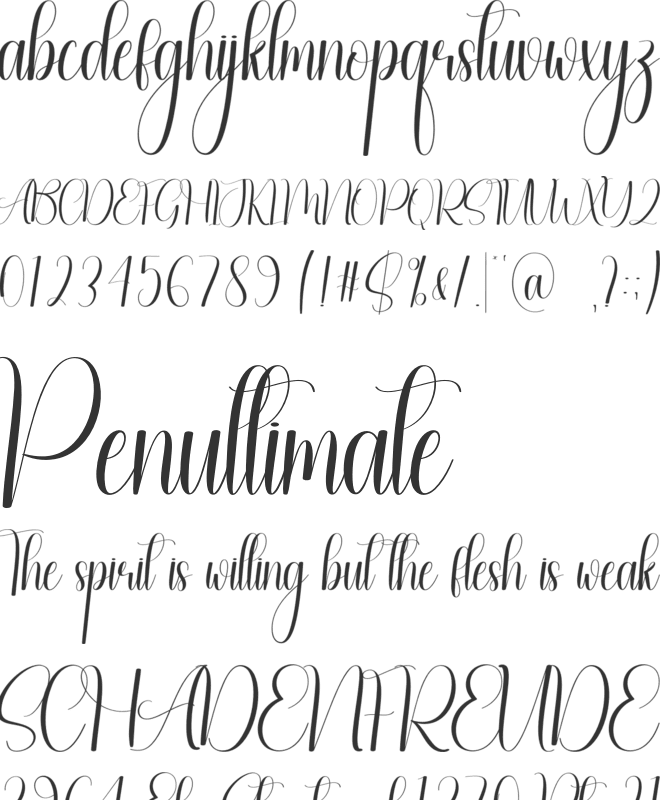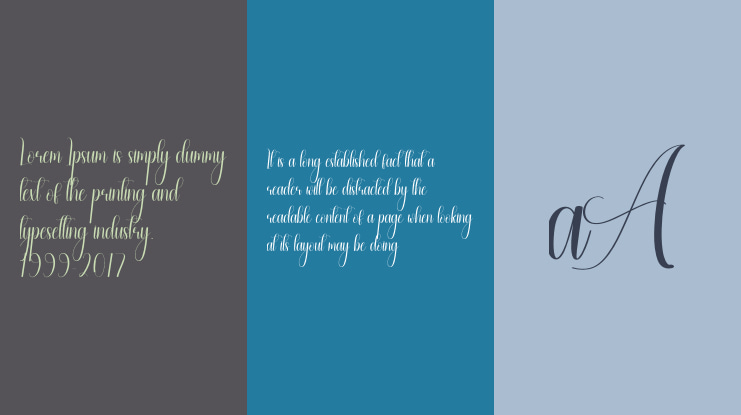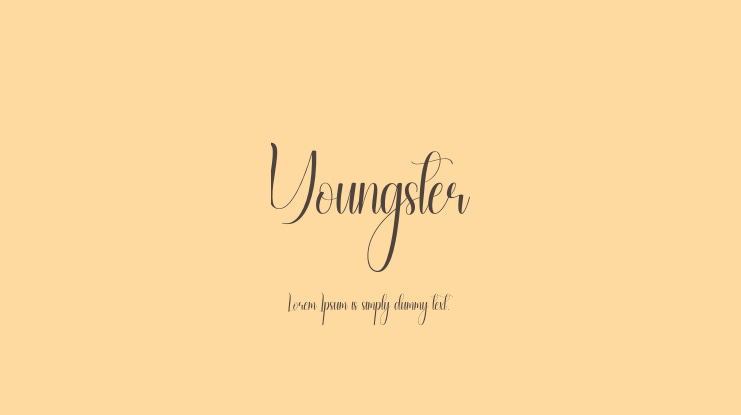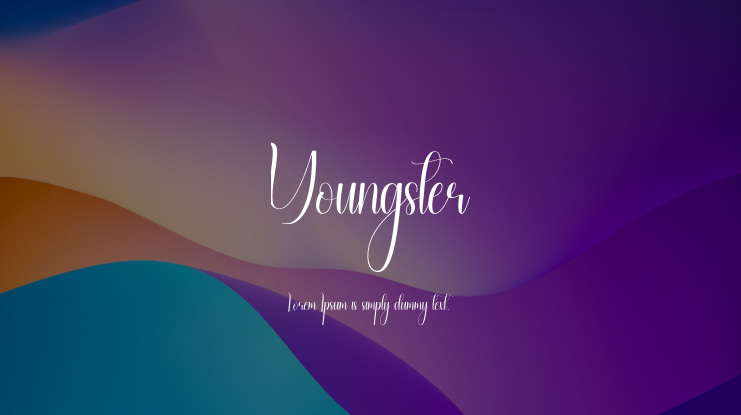
Youngster Font
The latest style letters are perfect for wall displays, wedding invitations, social media post logos, advertisements, product packaging, product designs, labels, photography, watermarks, invitations, stationery, and any project that requires tasteful handwriting.
Youngster font preview